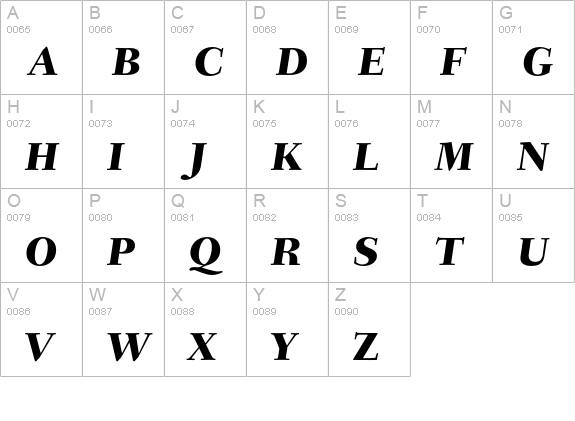
Fairfield LH 86 Heavy Italic Font Details
Fairfield LH 86 Heavy Italic is a heavy, high-impact, italic variant in the Fairfield typeface family \xE2\x80\x94 well suited to high-impact headlines, posters, and display advertising.
Fairfield LH 86 Heavy Italic is a bold and dynamic typeface that exudes confidence and modernity. Its heavy weight and italicized style make it perfect for adding emphasis and impact to any design project. The strong and sleek letterforms of this font command attention and convey a sense of strength and authority. This typeface is ideal for headlines, titles, branding, and other display purposes where you want to make a bold statement. Its distinctive design ensures that your message will stand out and leave a lasting impression on your audience. And the best part? Fairfield LH 86 Heavy Italic is available for free download at FontsMarket.com. This means you can easily access this high-quality font without any cost, making it a valuable addition to your font library. Don't miss out on this opportunity to enhance your designs with the bold and impactful Fairfield LH 86 Heavy Italic font.